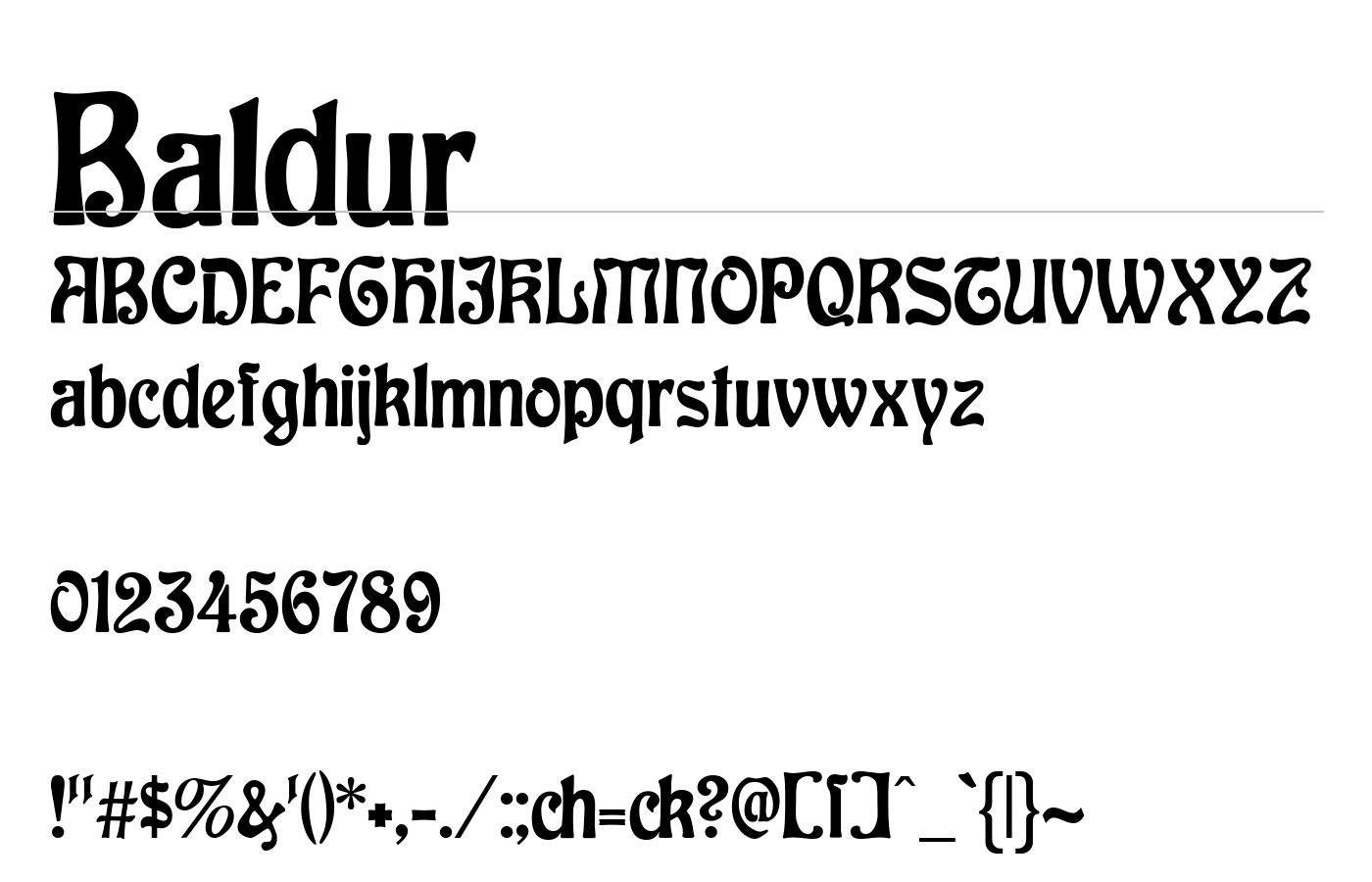
Baldur Font is a whimsical serif typeface with a playful, hand-crafted feel, featuring unique, slightly irregular shapes that add personality and charm. Its medium weight and moderate contrast make it eye-catching yet readable, perfect for creative projects like logos, posters, and branding that seek an artistic or vintage vibe. This font works especially well where a distinctive, expressive look is needed to stand out and evoke a fun, imaginative mood.
Baldur Font
About Baldur Font